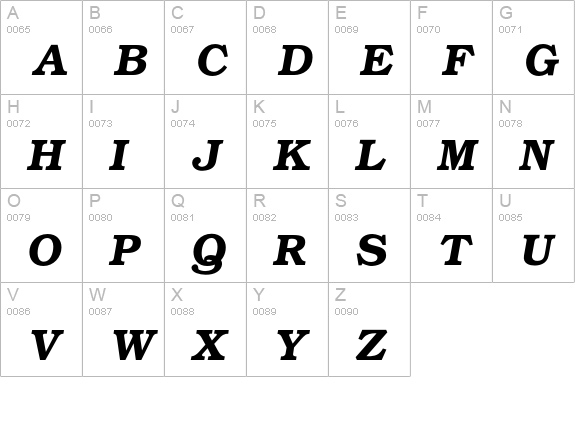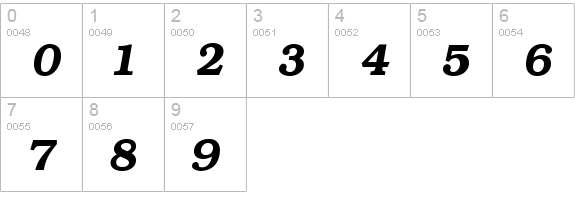
BookmanDemiItalic Font Details
BookmanDemiItalic font is a classic and elegant typeface that exudes sophistication and charm. With its distinctive italic style, this font adds a touch of refinement to any design project. The slanted letterforms create a sense of movement and flair, making it perfect for titles, headings, and emphasis in text. What sets BookmanDemiItalic font apart is its versatility - it can be used in a variety of design applications, from print materials to digital projects. Whether you're creating a stylish brochure, a sleek website, or a captivating poster, this font will elevate your design to the next level. And the best part? BookmanDemiItalic font is available for free download at FontsMarket.com! Now you can access this sophisticated typeface without any cost, making it a must-have addition to your font collection. Don't miss out on the opportunity to enhance your designs with the timeless beauty of BookmanDemiItalic font.